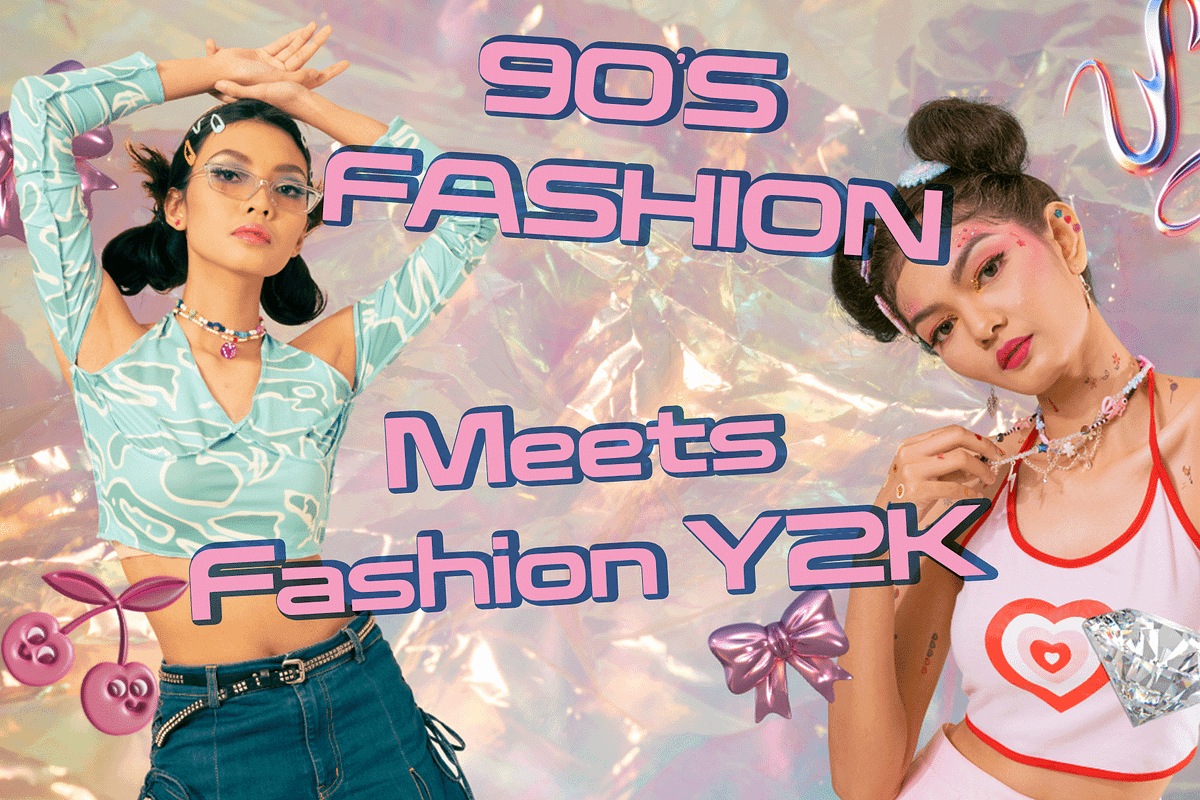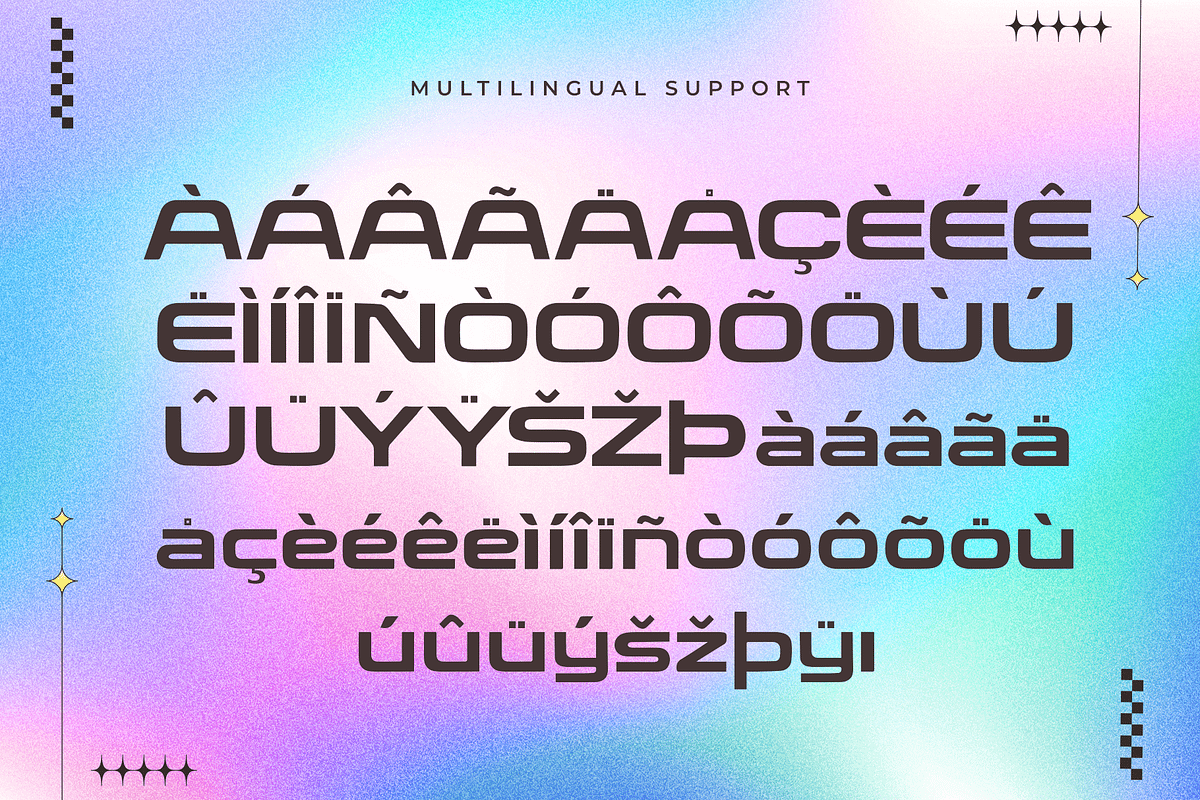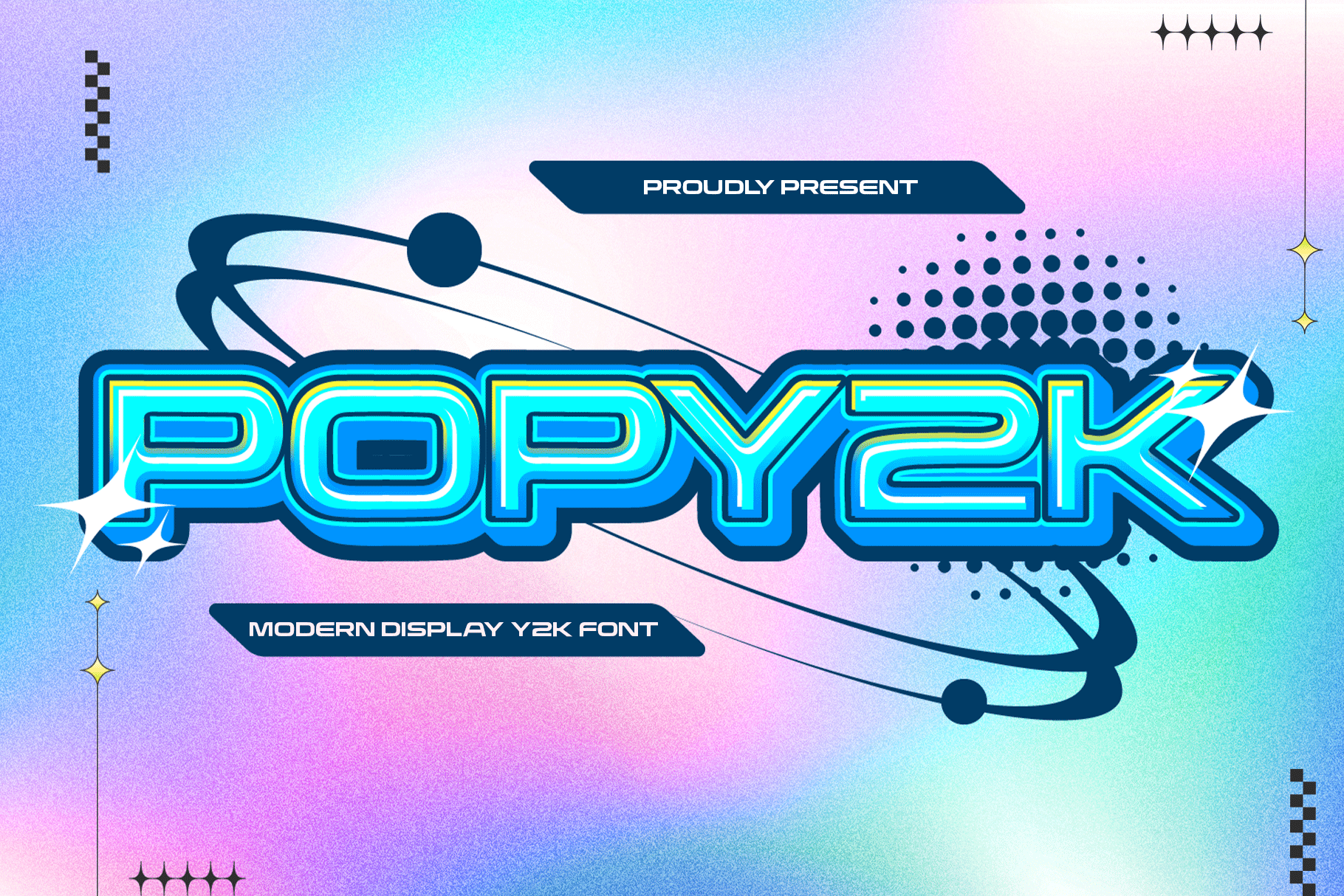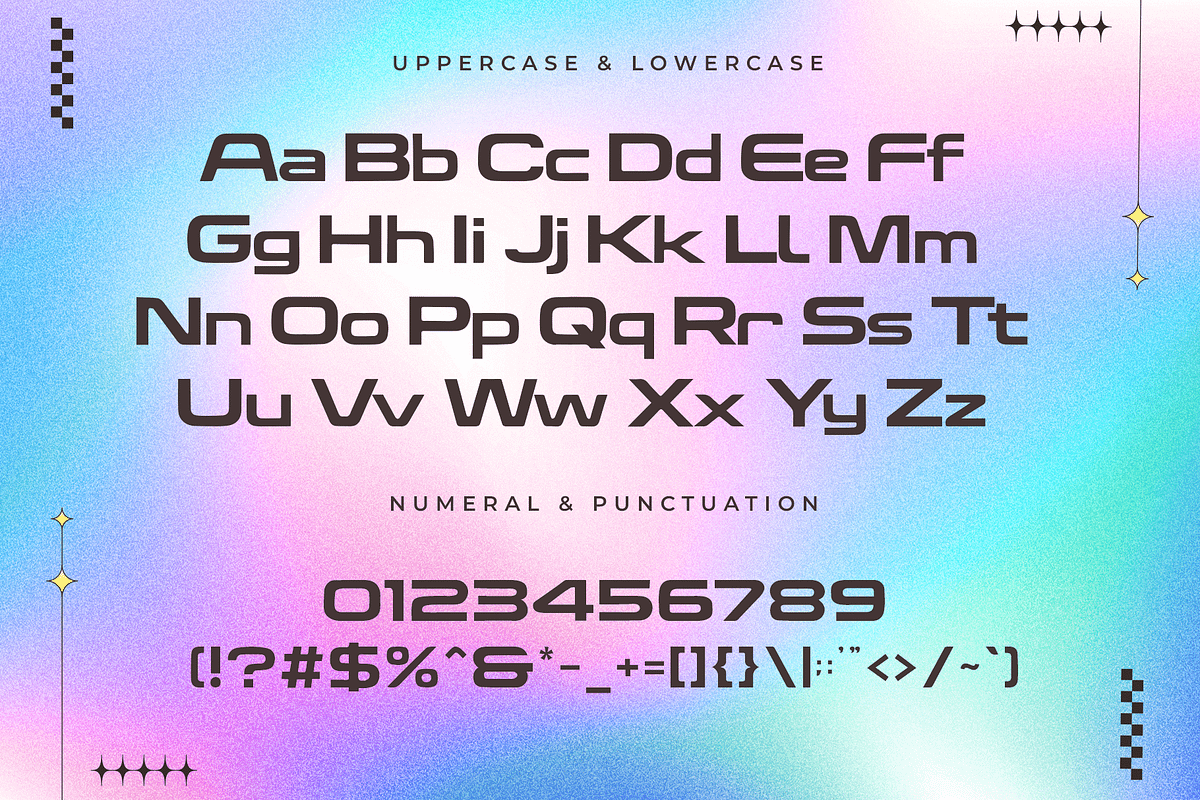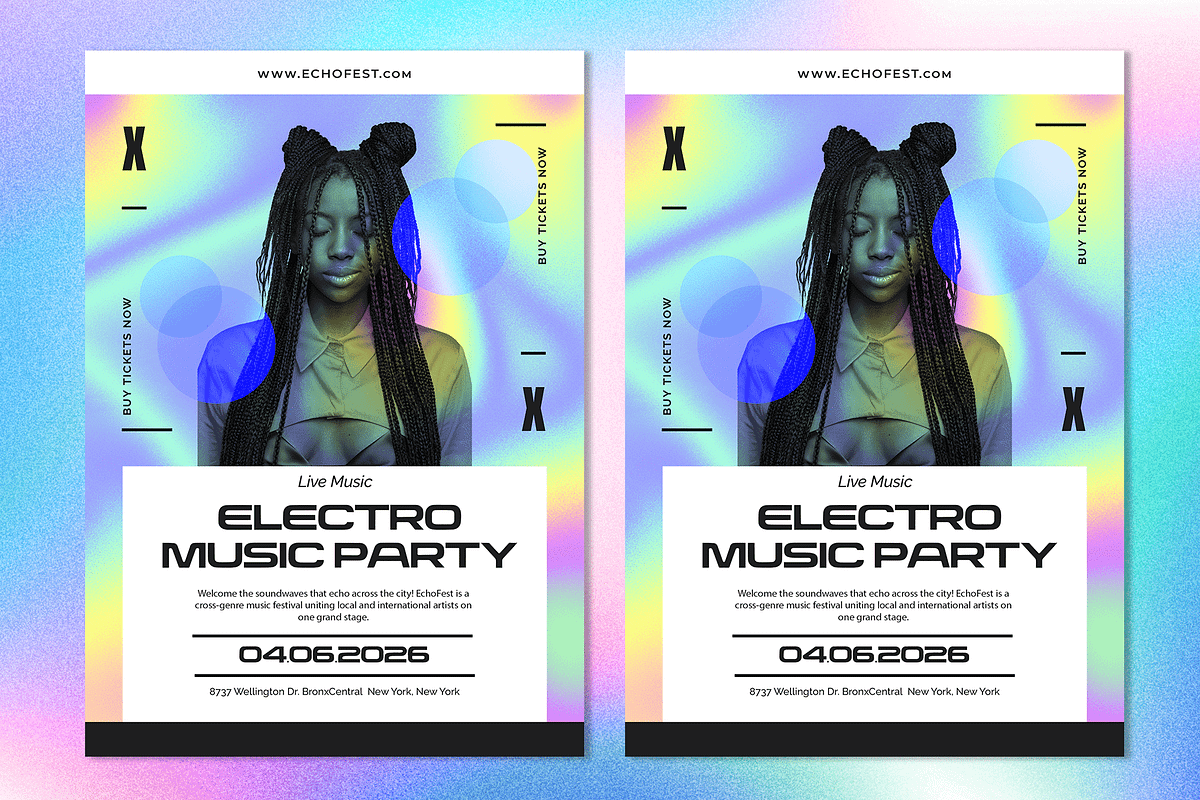
Popy2k – Modern Y2K Display Font
Popy2k is a bold and stylish modern display font inspired by the iconic aesthetics of the early 2000s. With its futuristic curves, shiny tech-inspired edges, and playful geometry, Popy2k captures the essence of Y2K nostalgia—perfect for designs that demand attention and personality.
Whether you're designing album covers, fashion labels, website headers, or experimental visuals, this font adds that punch of retro-futuristic charm. Great for anyone looking to tap into the millennium-era vibe with a fresh and modern twist.
Includes uppercase & lowercase letters, numerals, punctuation, and multilingual support.